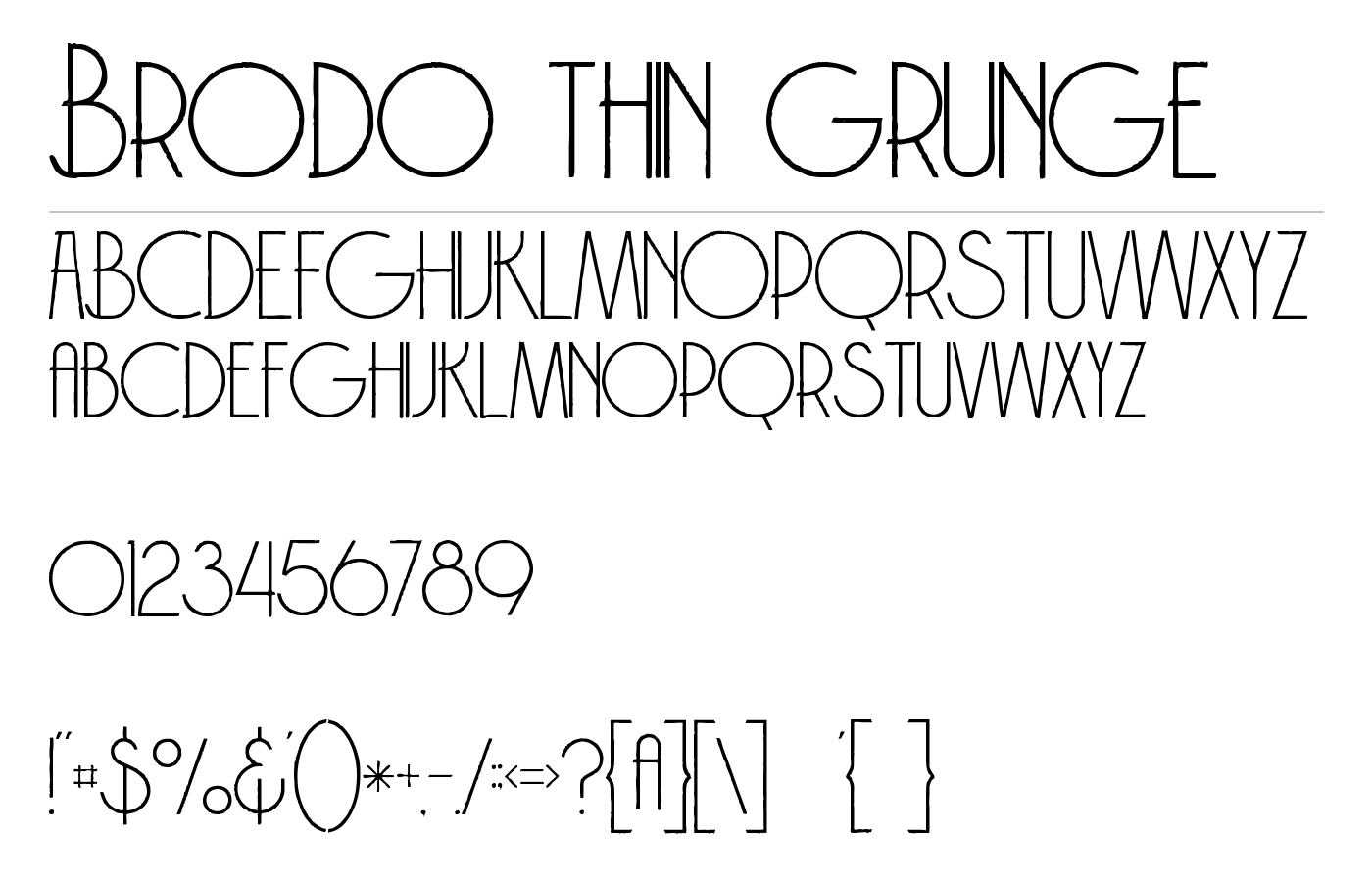
Brodo Thin Grunge is a tall, narrow sans serif font with a delicate, hand-drawn feel characterized by its thin strokes and subtle irregularities, giving it a slightly distressed, artistic look. Its high x-height and clean lines make it modern and elegant while the grunge texture adds a unique, creative edge, ideal for headlines, posters, and branding that seeks a blend of sophistication and quirky personality. This font works well where a stylish yet approachable vibe is desired, especially in fashion, editorial design, and creative projects.
Brodo Thin Grunge Font
About Brodo Thin Grunge Font